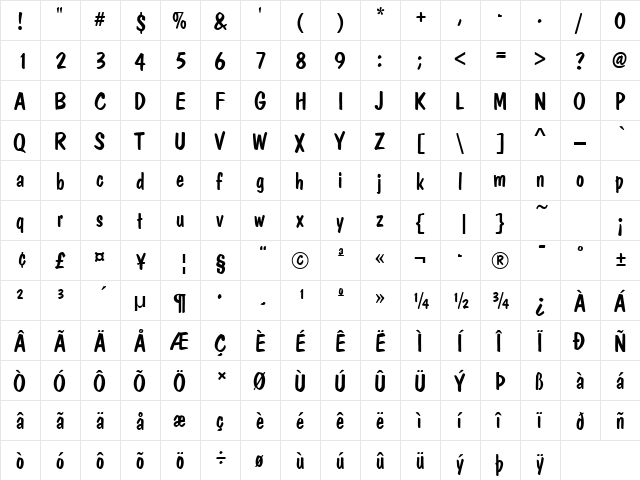
Pedro Regular
Design Context for Pedro Typeface
Pedro is a composed and adaptable typeface that performs quietly and consistently across a wide range of design contexts.